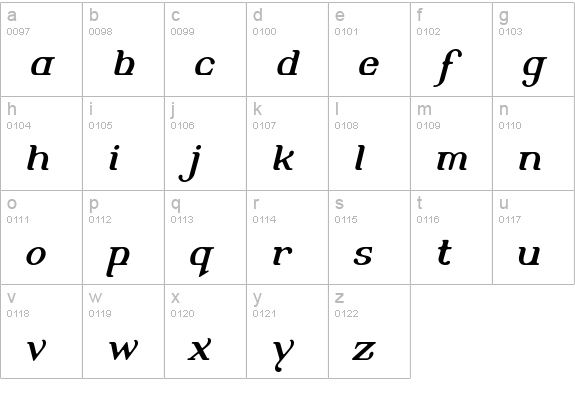
The Alembic-RegularItalicOne font is a stylish and elegant typeface that exudes sophistication and charm. Its italicized design adds a touch of flair and uniqueness to any project, making it perfect for a wide range of applications. Whether you're working on a creative design project, crafting professional documents, or simply looking to add a touch of personality to your text, this font is sure to impress. What's even better is that the Alembic-RegularItalicOne font is completely free to download. You can easily access this stunning font at FontsMarket.com, where you can quickly and conveniently add it to your font library without any cost. With its sleek and modern aesthetic, this font is a versatile choice for designers, creatives, and anyone looking to elevate their typography game. Don't miss out on the opportunity to enhance your projects with the Alembic-RegularItalicOne font – download it today and let your creativity shine!